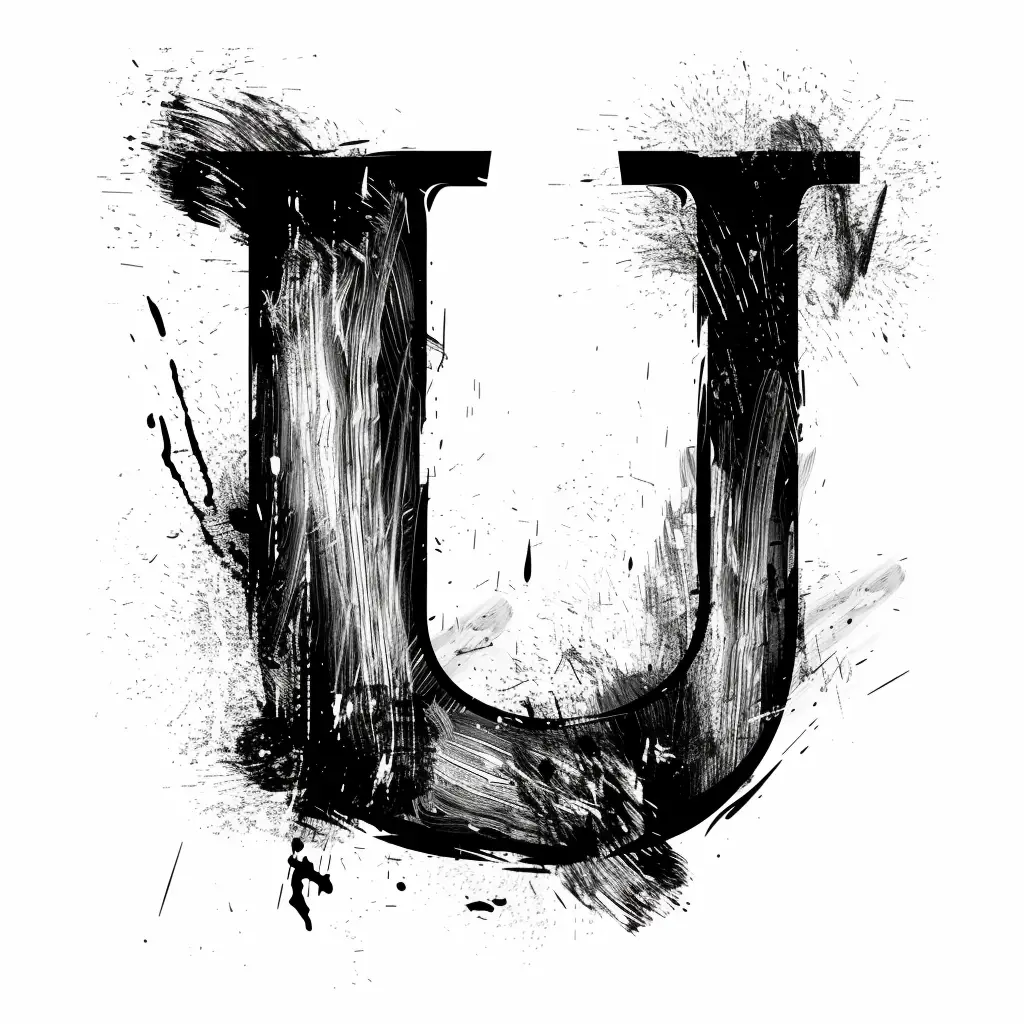
The image features a stylized, black letter "U" with a textured, brushstroke effect, set against a white background. The design incorporates splatters, drips, and rough, expressive lines, giving it a dynamic, artistic, and slightly chaotic appearance. The monochromatic color scheme emphasizes the contrast between the bold, dark letter and the clean, light backdrop.